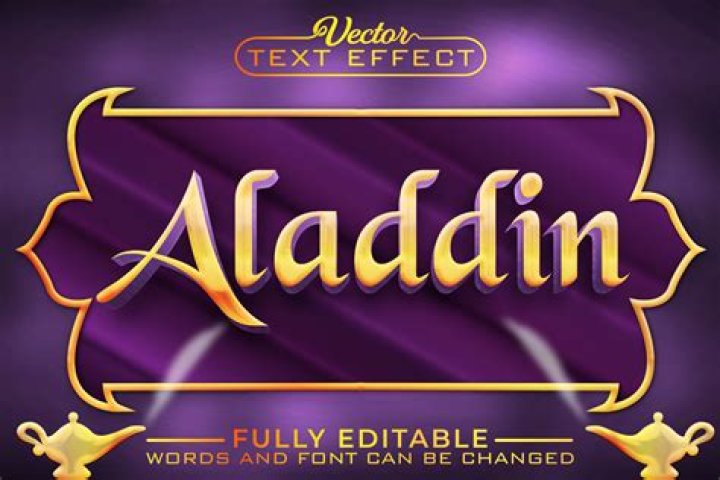
What Font is the Aladdin Font? The Aladdin font is a font called “Aladdin” created by WSI. It looks very similar to the font used in the title for the original Aladdin Disney cartoon.
Aladdin is a 1992 Disney film, based on the classic Arab folktale of Aladdin and the magic lamp from One Thousand and One Nights, which tells the story of Aladdin, a peasant boy who stumbled upon a magic lamp that enables him to do anything and a magic ring that can protect him from injury. The font used for the film title in…